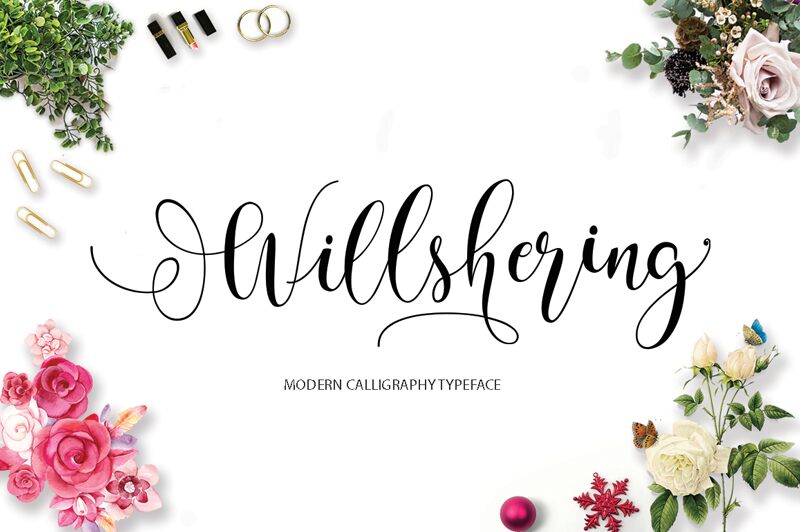
Willshering, designed by Moriztype, is a captivating modern calligraphy font that effortlessly blends elegance with contemporary style. With its semi-light weight, this font exudes a delicate and graceful charm, making it ideal for projects that require a touch of sophistication.
Whether you're crafting wedding invitations, branding materials, or social media graphics, Willshering adds a refined and refined feel to your designs. The flowing curves and intricate details of this font will captivate your audience and leave a lasting impression.